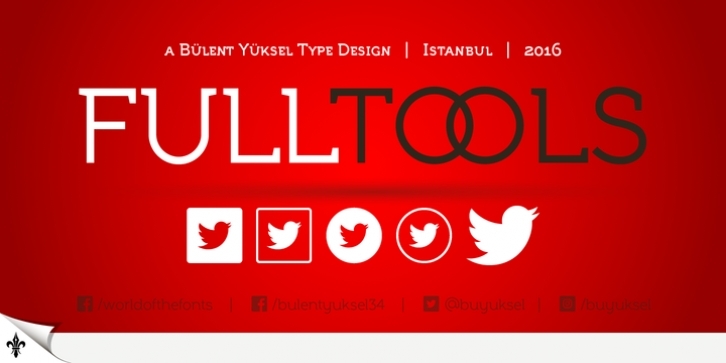
FULL TOOLS
Full Tolls is the younger brother of original Full Sans, Full Neue and Full Slab.
Full Tools started with Social Media Icons. In the following days coming new icons. For example "Full Tools - Communication" and "Full Tools - Emojis" and mode.
To take up less space and simplifying icons on the web and phone apps.
TECHNICAL:
All icons bigger 10% from another Full Fonts.
Full Slab is the perfect font for web use.
SOCIAL MEDIA ICONS
- Amazon,
- Android,
- Apple,
- Bechance,
- Bing,
- Box,
- Buffer,
- Creative Market,
- Crome,
- Delicious,
- Deviantart,
- Dribbble,
- Dropbox,
- Etsy,
- Facebook,
- Facebook Like,
- Facebook Unlike,
- Flckr,
- Firefox,
- Foursquare,
- Google+,
- Grafiport,
- Hi5,
- Howcast,
- Html5,
- Instagram,
- Klikstarter,
- Linkedin,
- Messenger,
- Myspace,
- Myfonts,
- Opera,
- Path,
- Paypal,
- Periscope,
- Pinterest,
- Plaxo,
- Quora,
- Reddit,
- Rss,
- Shutterstock,
- Skype,
- Snapchat,
- Spotify,
- Stumbleupon,
- Twitter,
- Trello,
- Tumblr,
- Vimeo,
- Vine,
- WhatsApp,
- Wikipedia,
- Wordpress,
- Yelp,
- Youtube.